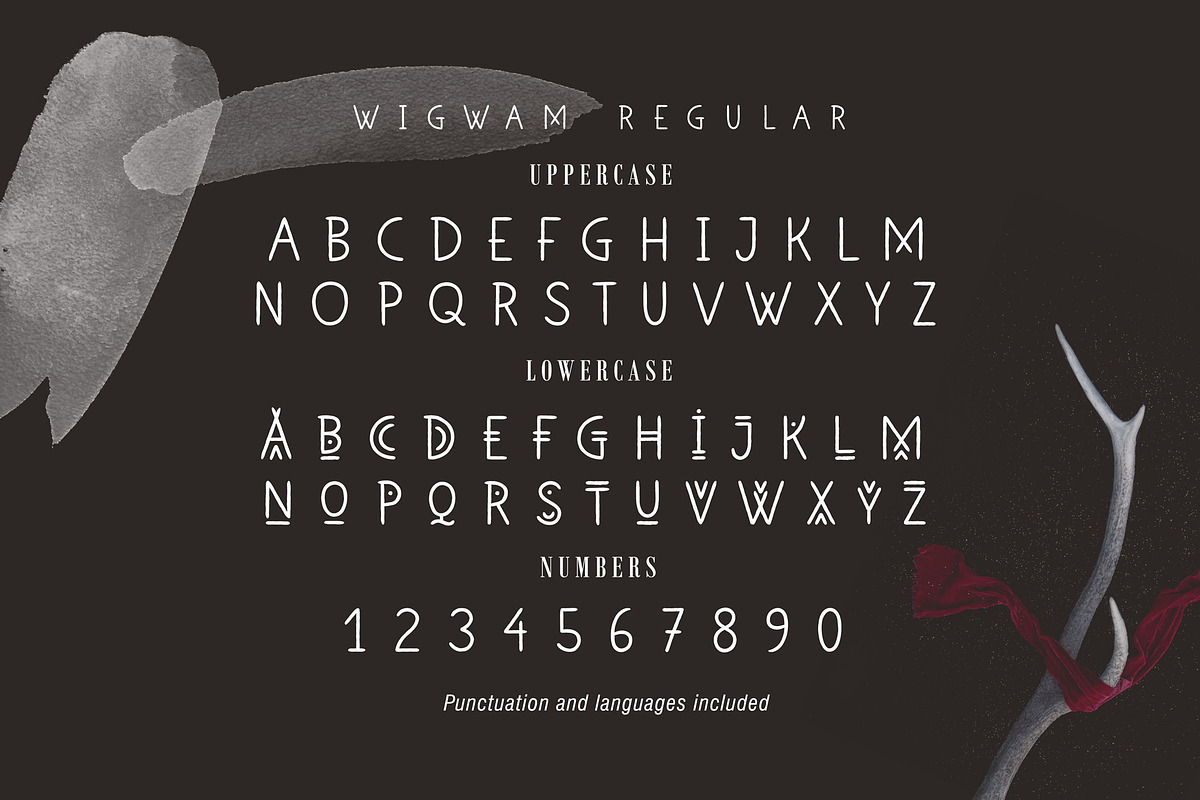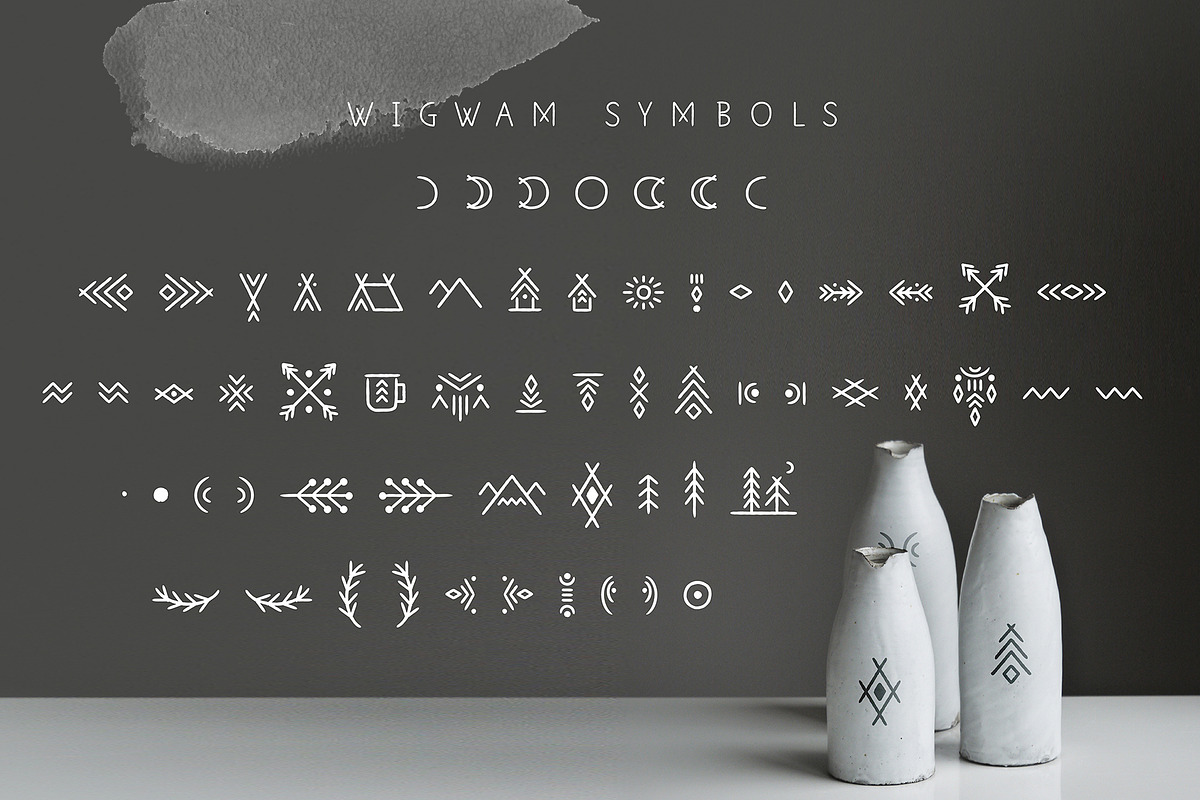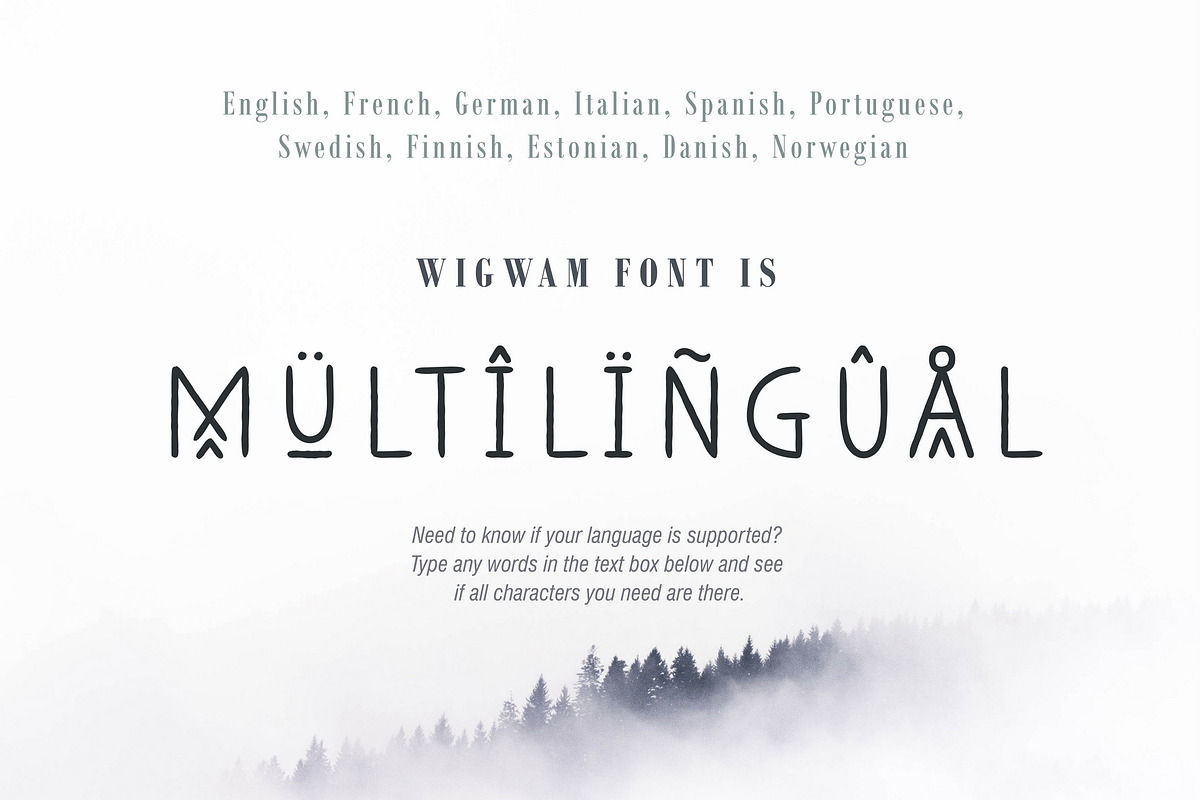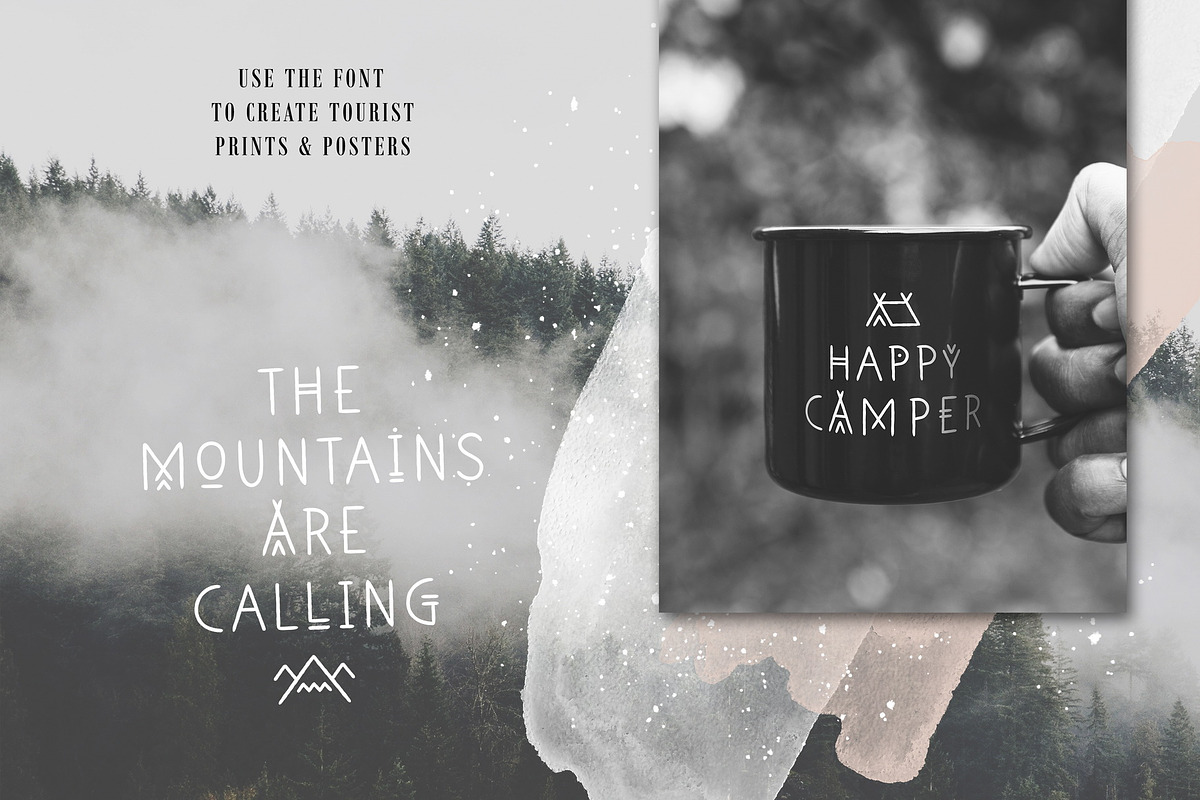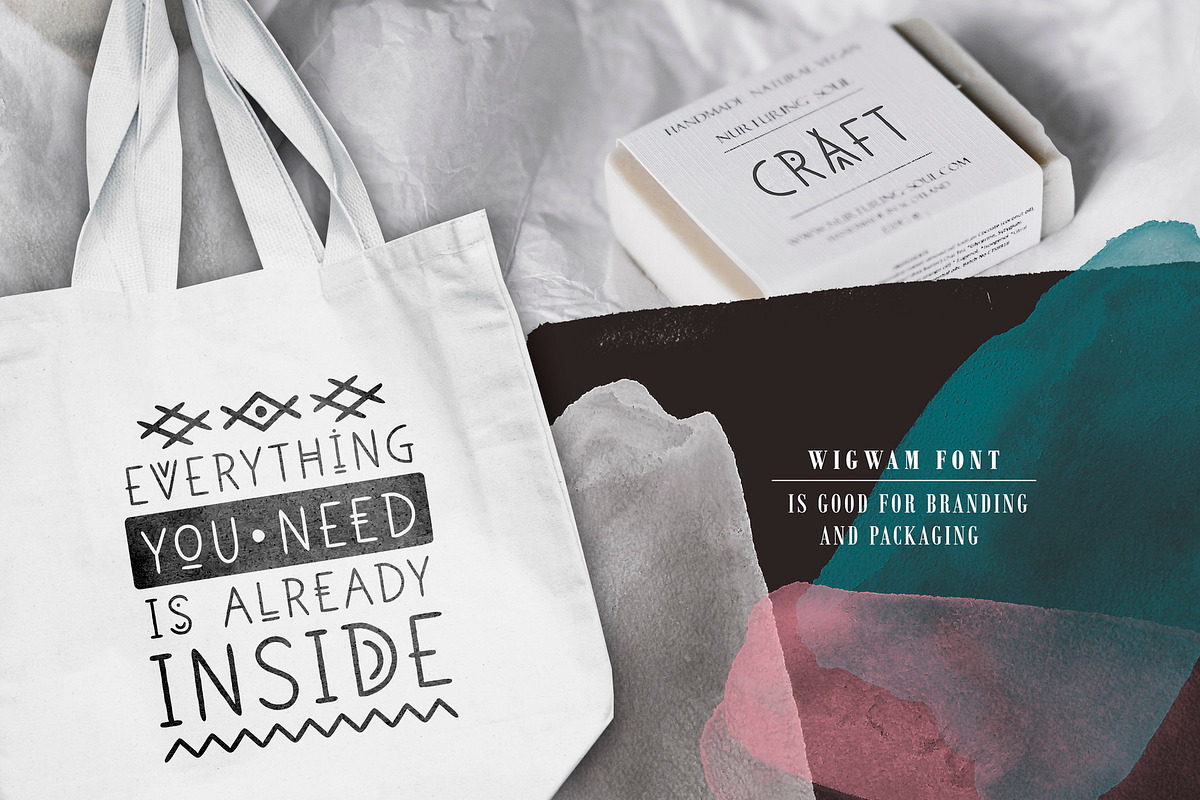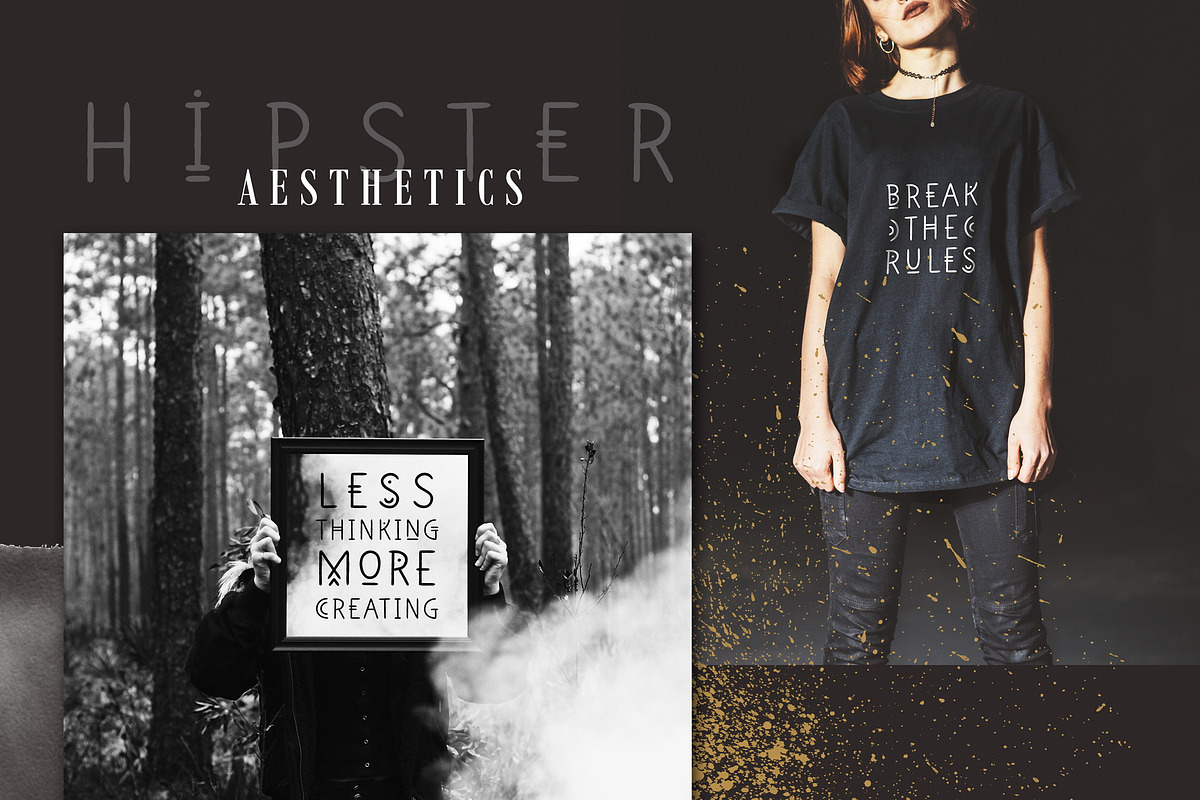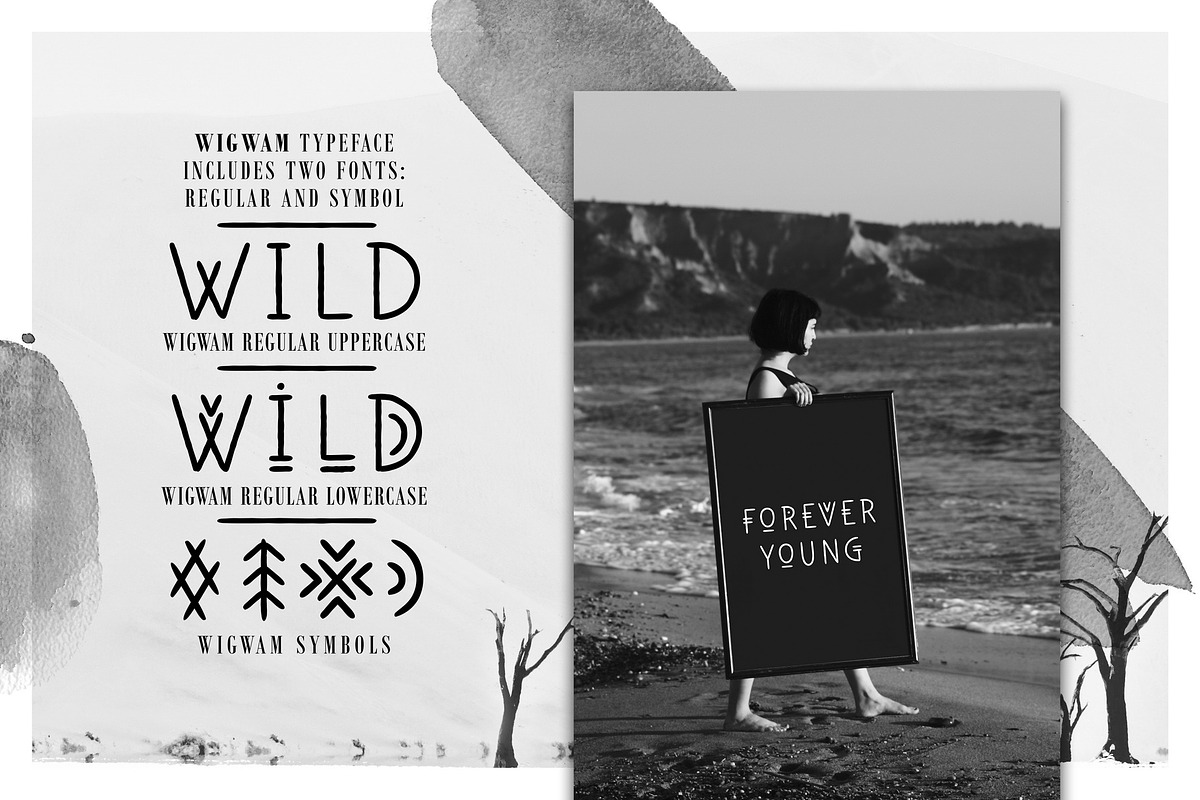
Wigwam - Handwritten Geometric Font
I would like to introduce my new product Wigwam - Handwritten Geometric Font. Wigwam is a linear font in hand-drawn minimalistic style, lowercase is decorated with geometric elements. The typeface includes Regular and Symbol versions. Combine the font with symbols to get a unique design. The font is easy to use in various design programs or without any program.
Wigwam font is suitable for lettering posters, camping products, photo overlays in hipster style and music albums. The font works great both for printing clothes and craft products branding and packaging (herbal tea, handmade soap, organic food). Also use individual letters and symbols to create logos and monograms.
The font has extensive language support, it includes English, French, German, Italian, Spanish, Portuguese, Danish, Norwegian, Swedish, Finnish, Estonian. Need to know if your language is supported? Type any words in the text box below and see if all characters you need are there.
- Wigwam is a linear font in hand-drawn minimalistic style, lowercase is decorated with geometric elements.